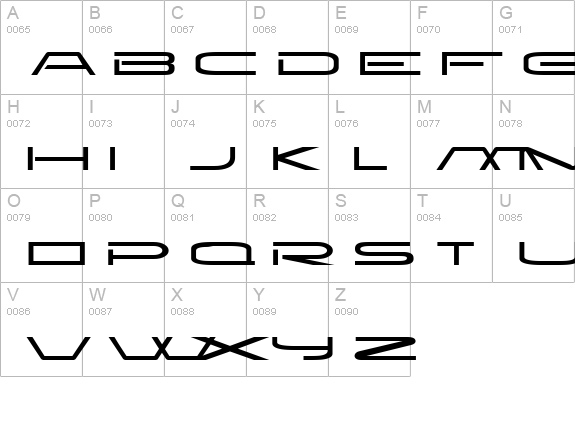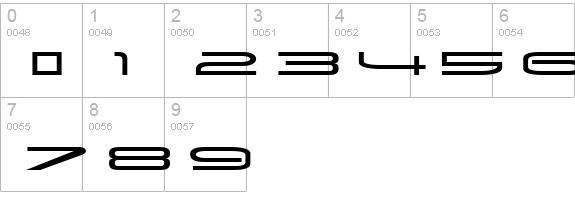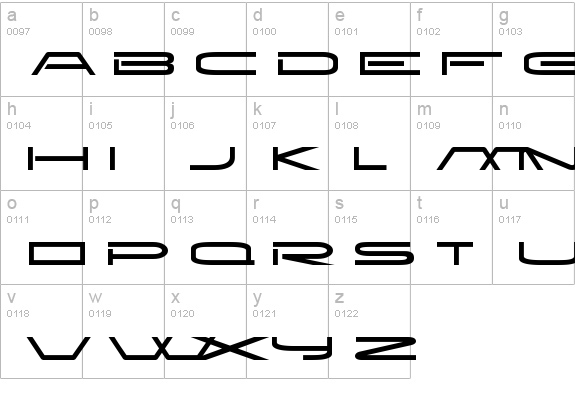
Introducing the New Brilliant font - a versatile and modern typeface that is sure to make your designs stand out. With its clean lines and elegant curves, this font is perfect for a wide range of projects, from branding to packaging to web design. The New Brilliant font comes in a variety of weights and styles, allowing you to create dynamic and engaging typography. The best part? This font is available for free download at FontsMarket.com! That's right, you can enhance your projects with this stunning typeface without spending a dime. So why wait? Download the New Brilliant font today and let your creativity shine!